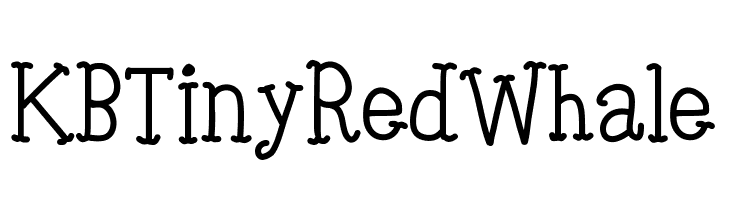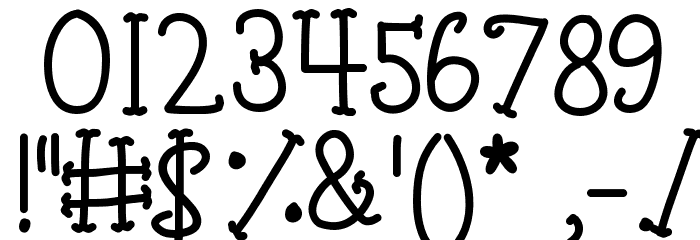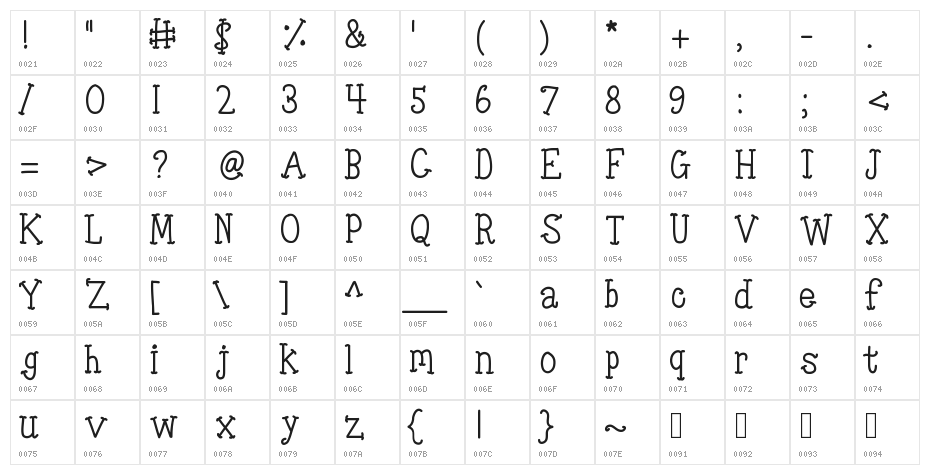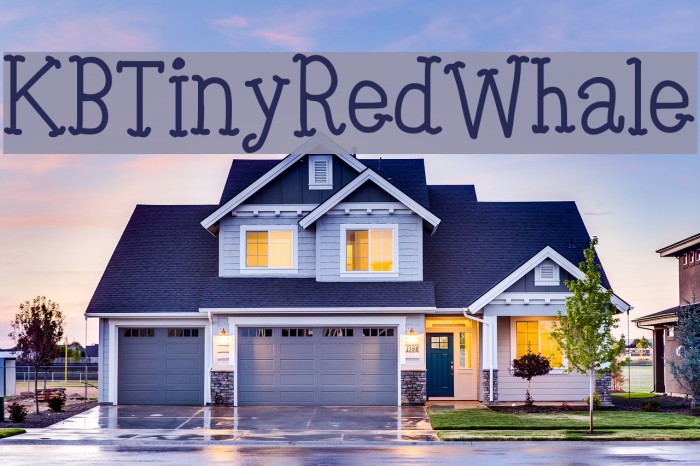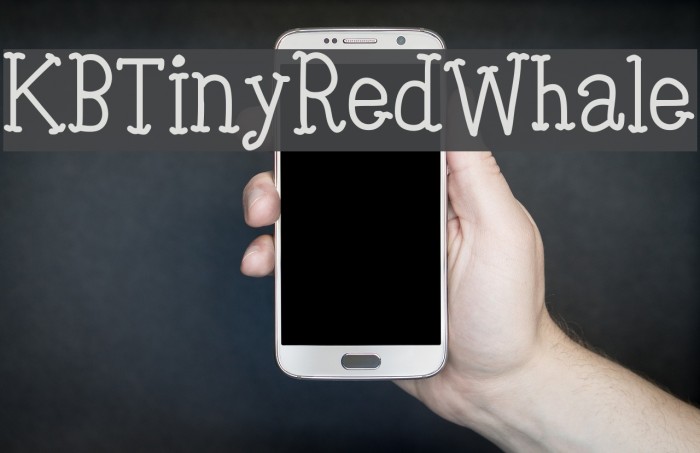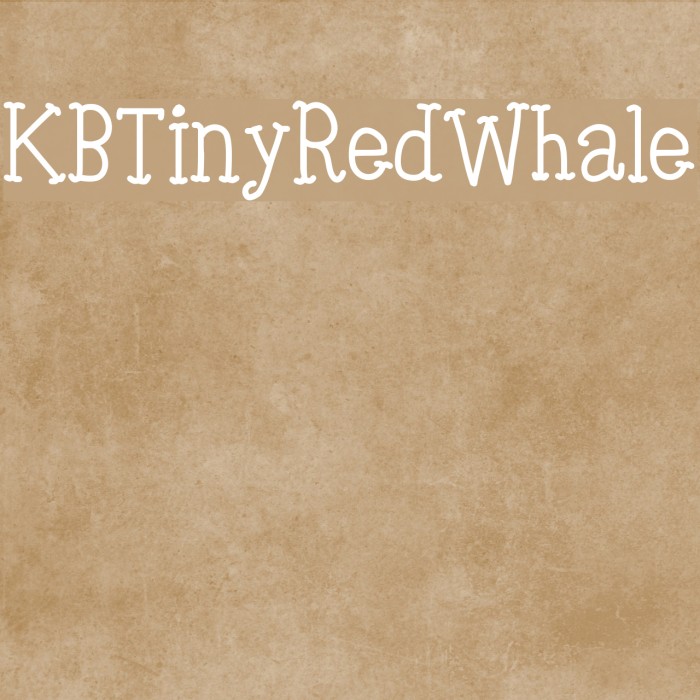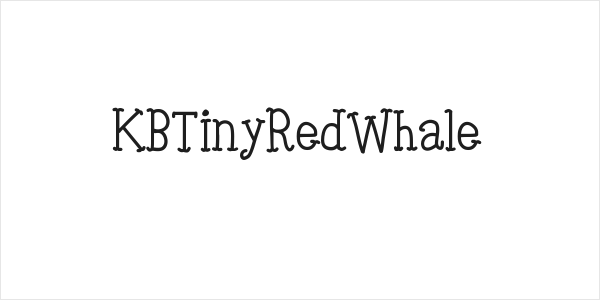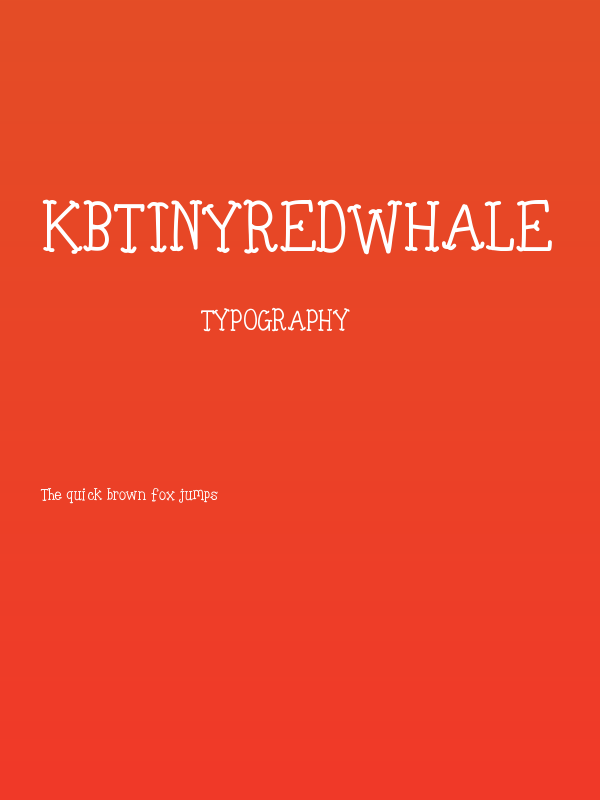
KBTinyRedWhale Font
KBTinyRedWhale Description
This font features a playful and whimsical design, characterized by its rounded and slightly irregular strokes. The letters have a hand-drawn quality, with subtle variations in line thickness that add to its charm. The uppercase and lowercase letters maintain a consistent style, with the lowercase letters exhibiting a slight bounce, enhancing the font's lively appearance. The numerals and special characters are crafted with the same playful aesthetic, making them blend seamlessly with the alphabet. This font is ideal for projects that require a fun and approachable feel.
| Proposed Projects | Children's books, greeting cards, playful branding, and casual invitations. |